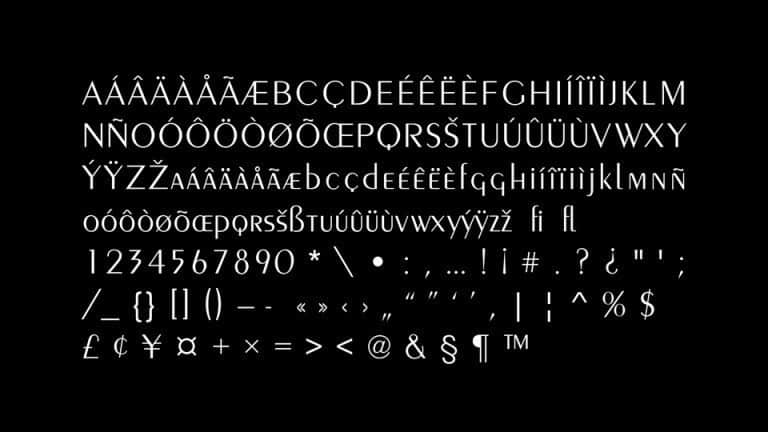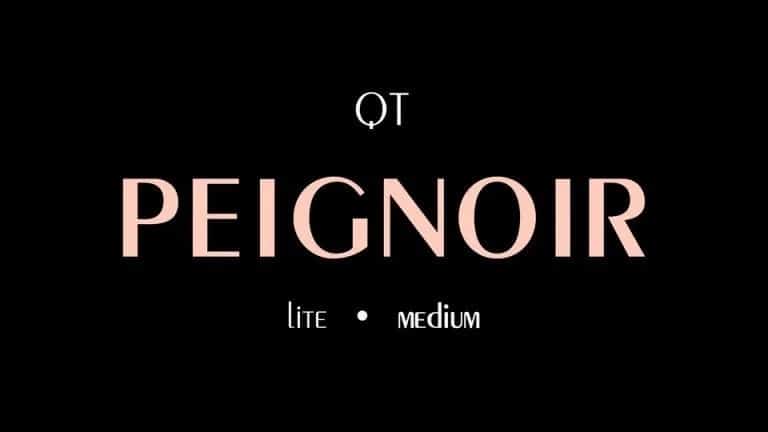
Peignior Sans Serif Font
Befonts is very pleased to introduce a new modern sans-serif typeface. It’s a condensed sans-serif font. It has a tall Cap Height as well as x-height to balance it. It’s a versatile Sans Serif family, use it as a Headline font or as a text font. Peignior Font is designed and shared by Qualitype. It’s a modern sans serif font. It offers rich solutions to your creative projects with its alternative versions. You can use Sans serif font feature in many areas easily. You can create your text with regular characters, and highlight bold characters and titles.
Logos, titles, science and technology fields, Medicine, Chemistry etc. It is absolutely perfect for Magazines, packaging design, books, branding and more!